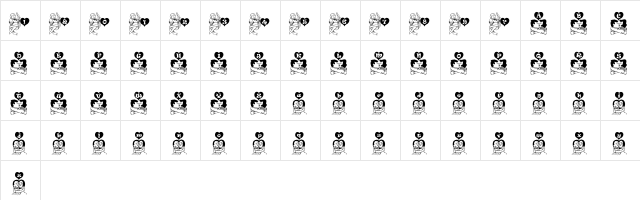
Val & Tyne Regular Free Font
Val & Tyne Regular
Design Context for Val & Tyne
Val & Tyne is a composed and adaptable typeface that performs quietly and consistently across a wide range of design contexts.